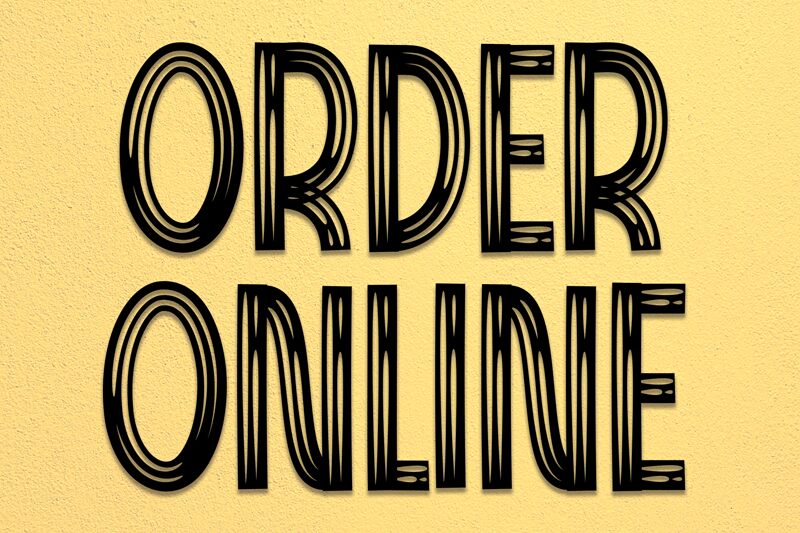
Order Online
Order Online, designed by Scratchones, is a display font that exudes a creative flair with its decorative style and semi-bold weight. Crafted to stand out, its condensed width offers an aesthetic that is at once modern and impactful. The unique characteristics of Order Online are defined by its ability to capture attention while maintaining readability, making it an excellent choice for eye-catching headlines or dynamic branding projects.
The decorative elements of Order Online lend a distinctive personality to any design, infusing it with energy and character. Whether used in digital marketing materials or on print posters, the font's style ensures that your message is not just seen but felt. Its semi-bold weight strikes a perfect balance between boldness and subtlety, allowing for versatility across various creative endeavors.
In the realm of display fonts where distinctiveness is key, Order Online stands tall as a prime candidate for designers looking to inject vibrancy and uniqueness into their work without sacrificing functionality.